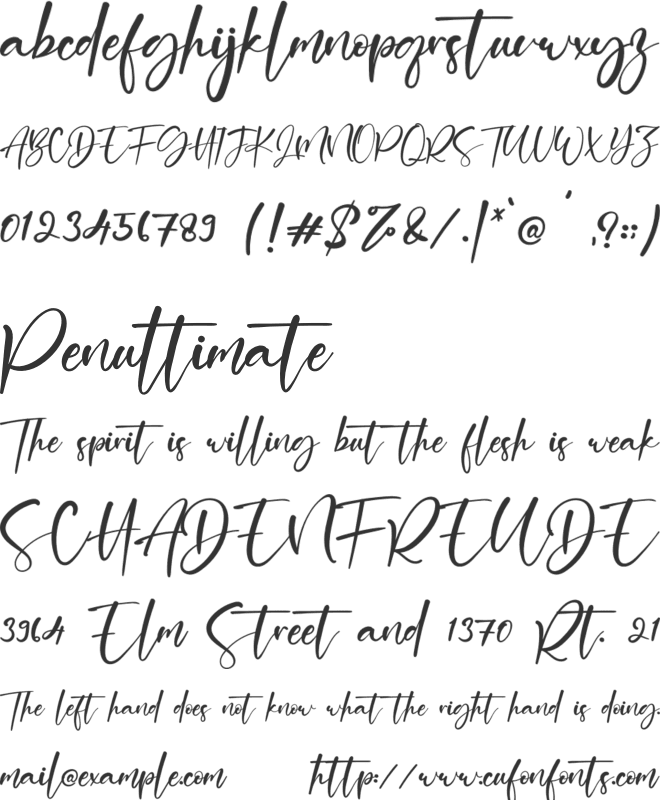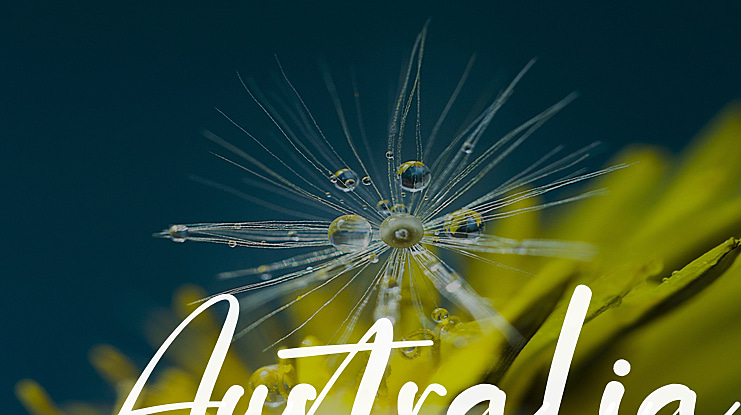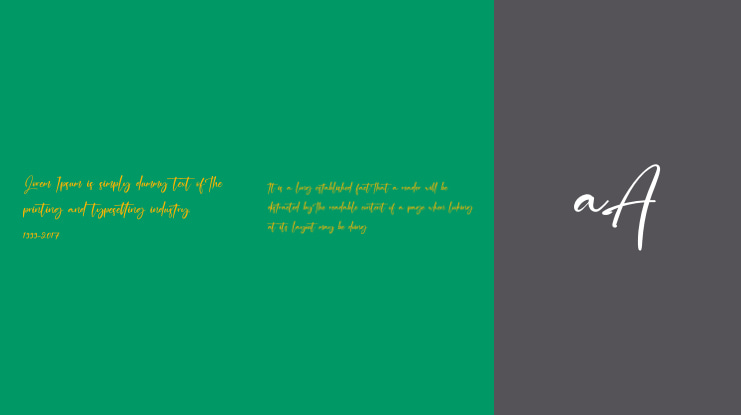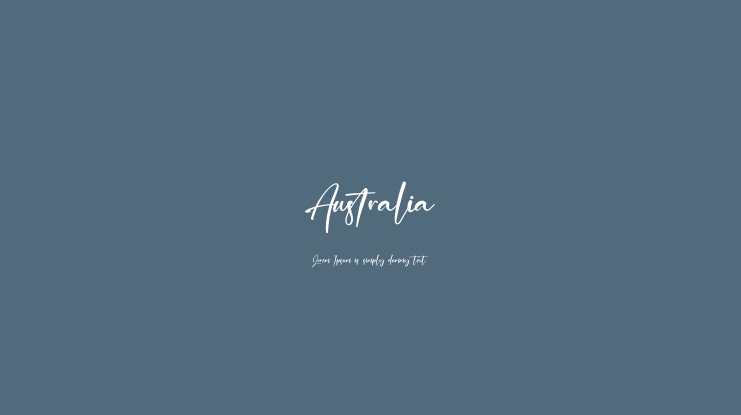
Australia Font
Australia Signature Script Font. A collection of letters and numbers suitable your projects also great for Logotype, Branding Design, Logo Design, Digital Lettering Arts, T-Shirt/Apparel, Poster, Magazine, Signs, Advertising Design, and any design needs.